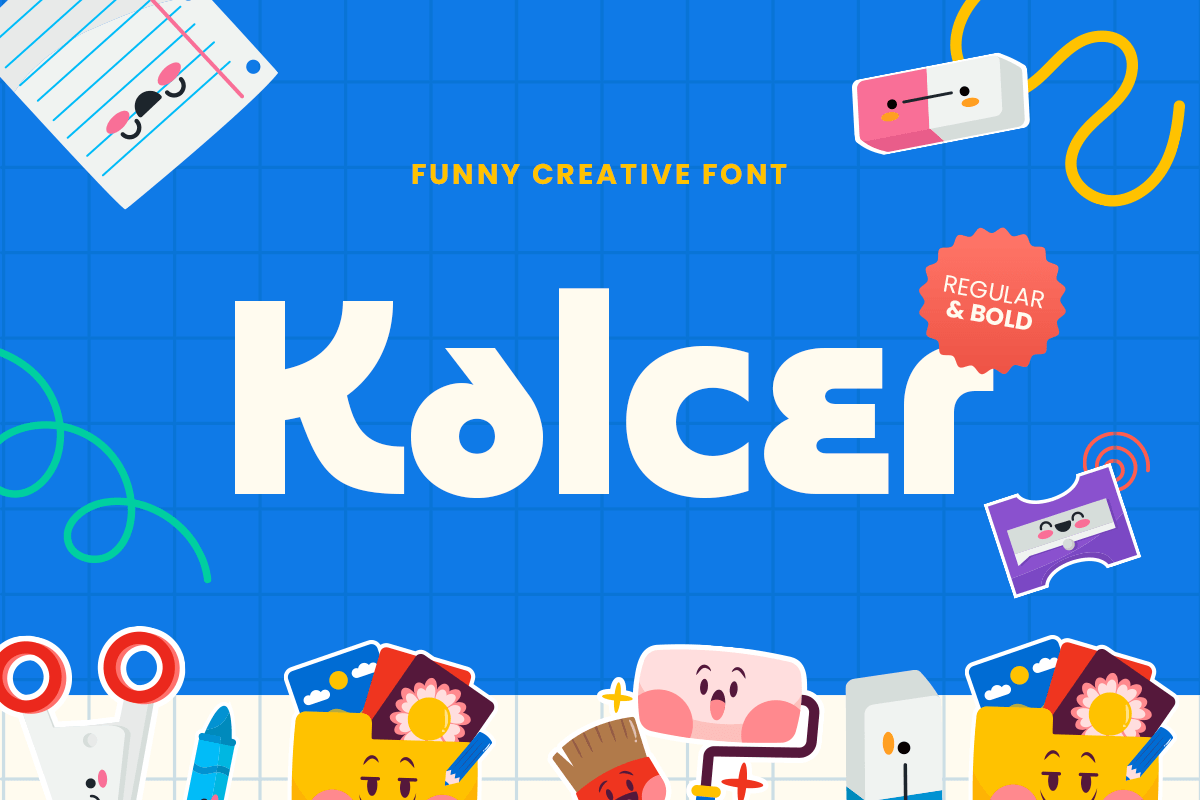
Kalcer
-Funny Creative Font
Kalcer - Funny Creative Font
Kalcer is a funny and creative font designed to sprinkle a little chaos (the good kind) into your branding. With its bubbly shapes, lively curves, and unpretentious personality, Kalcer font is perfect for children’s books, fun product packaging, creative logos, and marketing materials that don’t take themselves too seriously. (We believe your audience deserves a giggle before they even read your message.)
The font’s whimsical letterforms strike the ideal balance between being unmistakably playful and effortlessly readable — making it a true champion for those who want their design to shout, "Hey, look at me!" without actually shouting. It’s perfect for brands aiming to stand out with humor, energy, and vibrant life.
Elevate your designs with Kalcer, the font equivalent of a double-scoop ice cream on a summer afternoon — unforgettable, delightful, and a little bit messy (in the best way).
Kalcer – Funny Creative Font Features
• Playful and bold creative letterforms
• Ready with Regular and Bold Version
• Ideal for kids branding, comic projects, fun packaging, and casual design
• Punctuation, numbers, and symbols included
• Uppercase and lowercase letters
• OpenType features for extra playful alternates
Why settle for boring when you can dance across the page with Kalcer — a font where every letter is a little celebration?